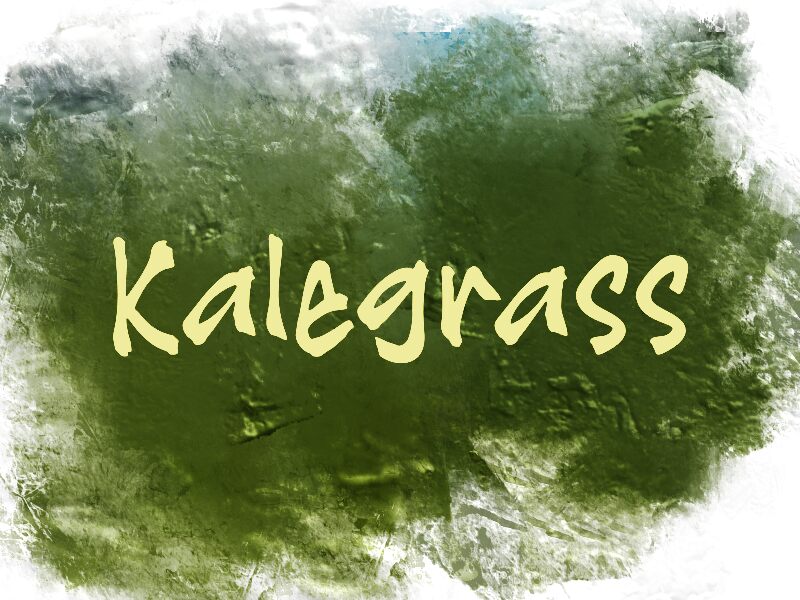
K Kalegrass font is a brush typeface created by wep, combining a natural handwritten style with an informal, organic feel. Its relaxed mood and casual tone give it a versatile, approachable appearance ideal for a variety of design projects. Despite its playful nature, the font maintains clear readability, making it a suitable free font option perfect for creative endeavors.
Kalegrass is a distinctive free font that combines playful curves with a modern aesthetic, making it a perfect choice for various design projects. Its unique style is suitable for everything from logos and branding to invitations and creative displays.